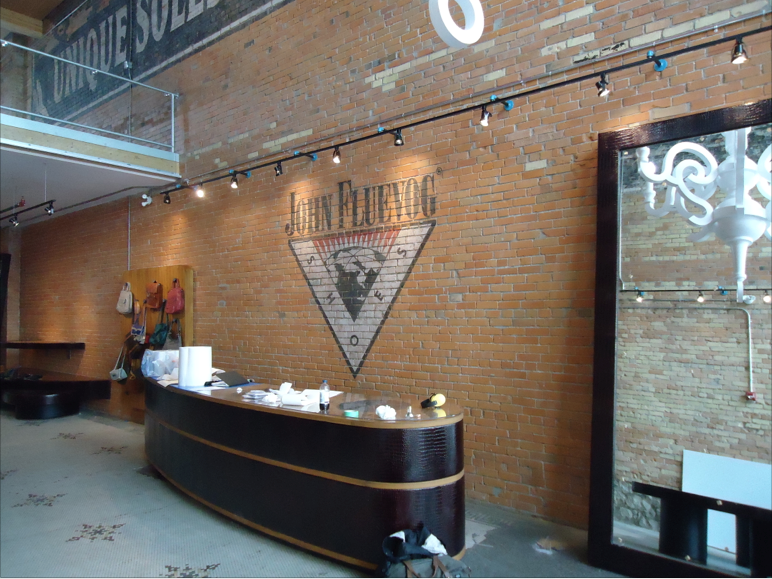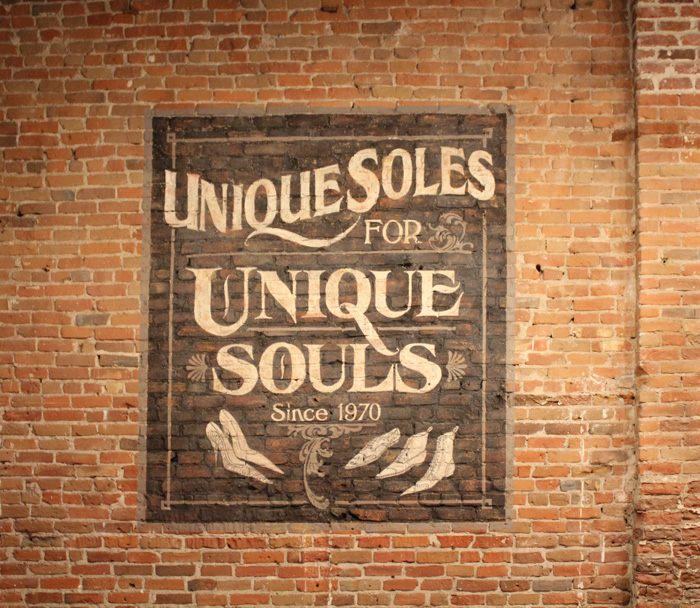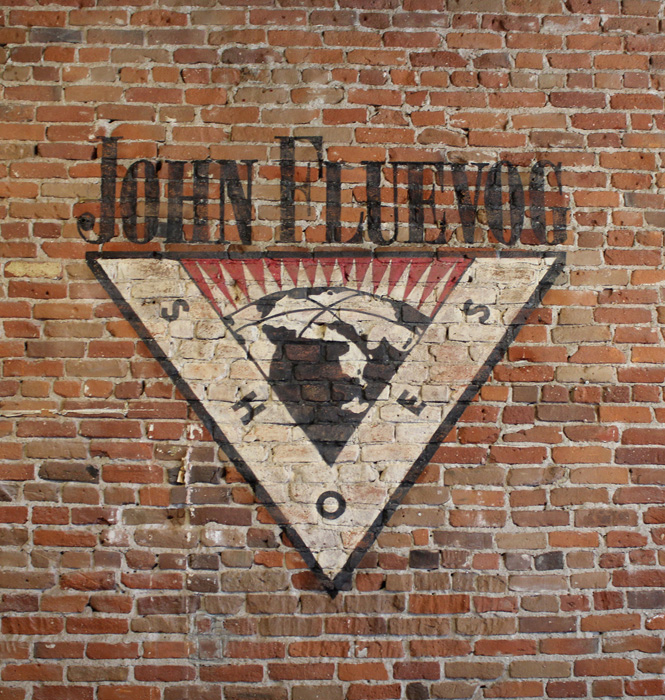
Wall Dog / Sign Painter needed in the Denver area
John Fluevog Shoes is opening a new store in the Larimer Square district in Denver — and our new retail space has a long brick wall on the right-hand side that stretches over 40' down the length of the store. Due to the history of the space and our company with a long history of hand-made product, we think this would be a perfect opportunity to do some hand lettering. We've done something similar in the past in the Calgary store (photos are attached). I've also attached a photo of the space we are leasing (currently under construction).
We are slated on open mid-July so really do need to get this project going. Please let me know if you available for a commission of this nature and if you are interested! We would provide the messages/copy we'd like to see and a general sense of aesthetic, but are eager to collaborate with experts in their field with their own creative input.
I'm following up on this and we'll see what happens. Looks like a tight deadline but an interesting project!
Not sure but I think the work in those photos were done by Rick Janzen.
Bill DeBekker is in Colorado.
It was Rick's work Bob.
Here's a step by step he did for the posted photos:
You are correct, I did those a few years ago. They are a great group to work with. To bad it's state side, it's one of my favorite type of signs to do.
Beautiful work, Rick.
Great post, page and I like the work very much.
Still in the learning phase ;-)
Thanks Danny for reminding us of who did the great work. I do remember the step by step that Rick posted of the project. Some very cool signs Rick , as always.
I had a long talk with Kristen and she sounds very nice. To bad they don't like to pay for travel. I was excited to hear that she had just scene the sign painter movie in BC. It's great they have an appreciation for the craft. Good luck getting the job Dan.
Thank you to everybody who contacted me — we're excited to move ahead with Dan on this project and we couldn't be more pleased. It's going to be a beautiful store (thanks in part to Dan), pop by after we open late July to see his work!
Kristin,
You will be in good hands with Dan. Please drop back in and post a few photos of the completed project, or at least give him permission to post them here.
Well, I finished up this job earlier this week. Thought I ought to post a couple of pictures.
At first we had talked about doing the style as if it were painted somewhere in the 40's - 50's to go along with some really fun wallpaper they're doing so I did a narrow, vertical version to fit on a narrow brick post.
A 1940's style version.
However, that changed rather quickly & we decided to go for a look around the turn of the 20th century so I did 2 more drawings. (Though I began each of these as a pencil thumbnail sketch, I used elements from Mike Jackson's Main Street collection, some Letterhead Fonts as well as some Atkinson influence in my computer generated drawings!)